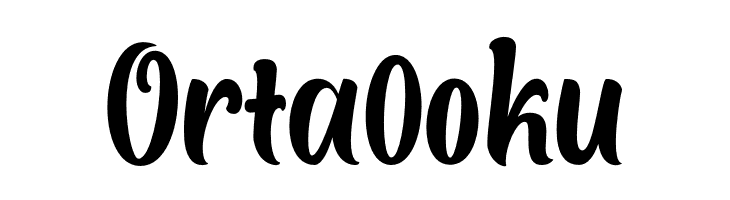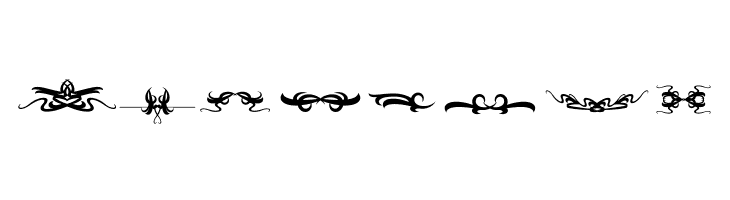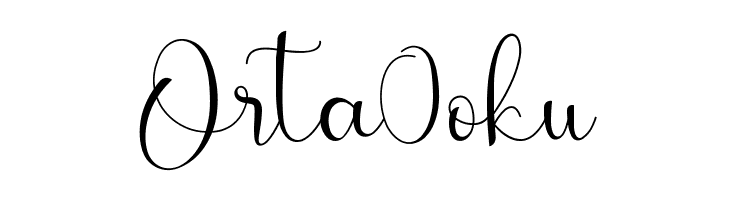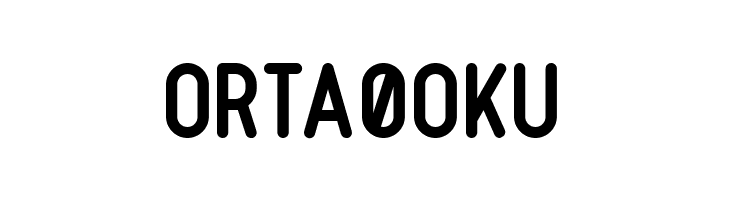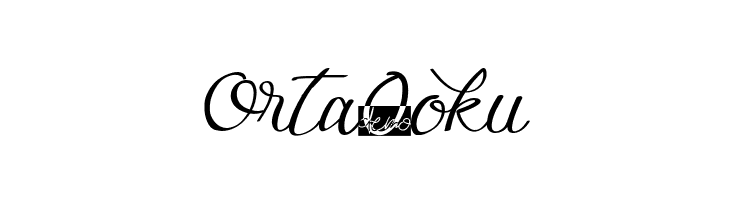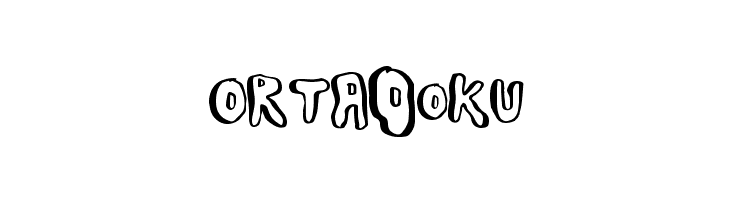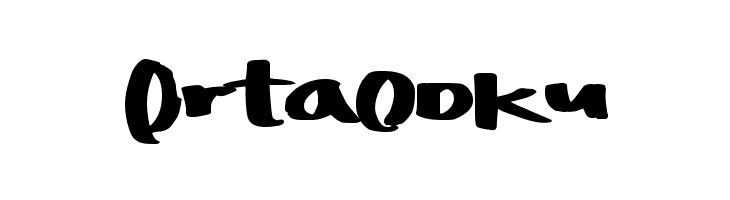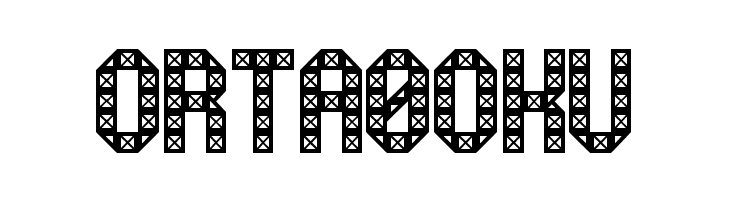
A graceful script font with flowing, cursive letters and elegant swashes.
An elegant, flowing script font with interconnected letters and subtle flourishes.
A bold, playful script font with a handwritten feel.
Highly decorative ornamental glyphs for borders and embellishments.
A bold, rounded sans-serif font with smooth curves and uniform strokes.
A bold, hand-drawn font with an energetic and rugged style.
A dynamic handwritten font with fluid, irregular strokes and a creative flair.
A playful, handwritten cursive font with thin, elongated strokes.
A playful, bold, hand-drawn font with a cartoonish style.
A bold, geometric font with intricate patterns for striking visual impact.